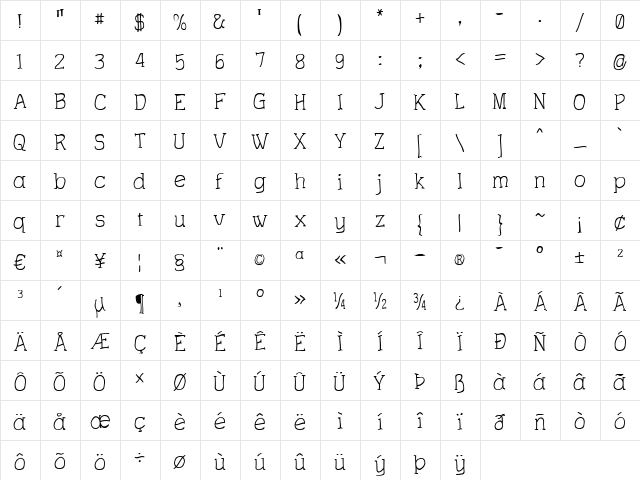
Charrington Roughened Regular
| Designer | Graham Meade |
Design Context for Charrington Roughened Typeface
Charrington Roughened embraces imperfection — its rough, textured character adds raw authenticity to designs that want to feel lived-in and unconventional.
A strong fit for alternative music projects, graffiti-adjacent design, and anything that deliberately resists polish.
Pro Tip: Use Charrington Roughened at larger sizes where the texture and irregularity of each letterform can be clearly seen — it loses its character at small sizes.